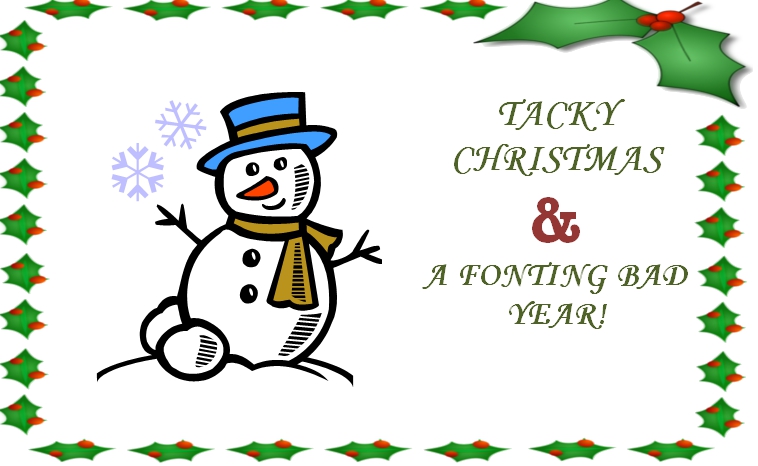
Jingly Jangly Christmas Fonts: A Designer’s Guide to the Nightmare Before Christmas!
Christmas is that magical time of awful clip art and even worse font choices!
Oh! Sweet baby Jesus please save us from jingly, jangly Christmas fonts!
Bah! Humbug! Christmassy fonts are the graphical equivalent of a Christmas sweater. They come out once a year, look awful, and embarrass everyone with any shred of dignity or graphical taste! Mom loves them and thinks they are so scrummy and cute but everyone else abhors these frumpy, dumpy, lumpy eyesores!
Here’s the 10 distinct Christmas font categories:
1. Snow-capped fonts!
2. Razzle-dazzle-sparkley-do fonts
3. Candy-cane stripy nightmare fonts
4. Icicle (but not nice-icle) fonts
5. Joy-to-the-world religious fonts from somewhere in history between baby Jesus and a leprechaun!
6. Christmas tree themed fonts
7. Elvish fonts from Santa’s Workshop (not to be confused with Elvis fonts that are also acceptable Christmas razzle-dazzle nonsense)
8. Unreadable scripty fonts with a super-duper Christmas flourish!
9. Christmas light-themed fonts
10. Fatty fonts in Christmas stockings or wearing Santa hats at a jaunty angle!
Now let’s get specific on these font horrors. Here’s my personal rundown of the top 5 worst holiday fonts to drop down your design chimney once-a-year:
1. Candy Cane
Stop trying to hypnotize me with your whirling stripy Christmas magic, candy cane font! You can’t make me like you or think you’re fun! You are horrid. You hurt my eyes and make me dizzy! I wouldn’t use Candy Cane even if I was an old lady in a retirement home who was creating a flyer on an ancient inkjet printer for her Christmas potluck!
Don’t use it people! Don’t try to force fun into your Christmas designs!
2. Algeria
This is the original “we three kings on camels” font from a distant and magical land of magic carpets, belly dancers, sultans, and furniture wholesalers. It comes out every Christmas to spread Joyous Noel but I really don’t feel the magic! It is such a clumsy font with fat serifs and an annoying drop-shadow that causes dizziness and nausea if looked upon for too long!
It’s such an awful font! Don’t use it at Christmas time!!! Don’t use it EVER!
3. White Christmas
White Christmas ticks two lame Christmas font boxes:
• Covered in dollops of snow
• An elfy and Celty font style from cartoon lapland
It just represents everything that’s tacky about Christmas design. The route one thought process that goes from “I need a font” to “I’ll just stick this snowy font on it!”
Stop it with the snow-capped theme fonts! From a design point of view, we’re not sure if they are fonts covered in snow or if a bird has plopped on them?
4. Harrington
Grandma loves this posh font that goes hand-in-hand with Edwardian Christmas scenes of ladies, gents, and ruddy-faced scamps skating on ice-lakes! I feel like the designer should be wearing a top hat and a monocle when using this on their old-timey Christmas designs. It’s not post-modern or cool! It’s simply an ugly font pretending to be old!
Faux old and horrible! Don’t use it.
5. Frosty
I think the majority of awful Christmas fonts that we endure at this time of year started out their lives in Christmas specials around the 1960s. This font is a bad recreation of those ’60s-style madcap fonts (that were pretty awful in the first place.) It’s so loopy and messy. There would NEVER be a good time to use it! I bet even snowmen can’t stand it!
It’s dated and crummy-looking! Please stay away!
Okay now that I’ve made my snooty comments about the Christmas fonts I don’t like, here are 5 alternative fonts that will add a bit of class to your Christmas designs.
1. Kimiko
I love this super clean and bold font from Rodrigo Navarro Bolado that has a little bit of Christmas flourish.
2. Antlers
I struggle with calligraphic fonts. I always feel that you are making the viewer work too hard to read them! However, if I was going to use a Christmas script font, I’d choose this particularly elegant one.
3. Wintermelon
There are so many font options when it comes to doing something fun and casual for the holidays. You really don’t have to resort to fake fun and frosty fonts. Go more contemporary with a handwritten “trash” font like the one above. There are a multitude of fonts like this to choose from but I really like the bold simplicity of this one. Better still would be to create your own handwritten text for your Christmas designs.